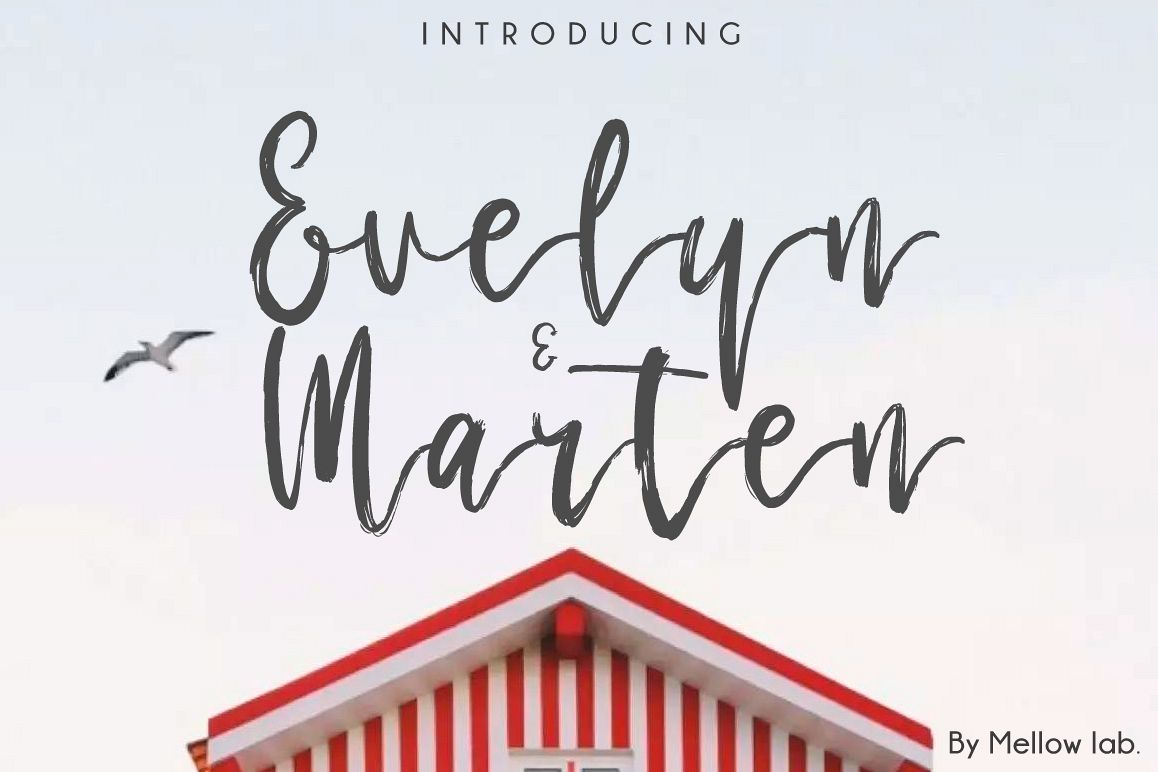
Evelyn & Marten Script
It's handwritten script. This font is ideal for branding and decorate your any project.
This font are perfect for wedding invitation or your blog. Also with their help, you can create a logo or beautiful frame for your home. Or just use for your small business, book covers, stationery, marketing, magazines and more.